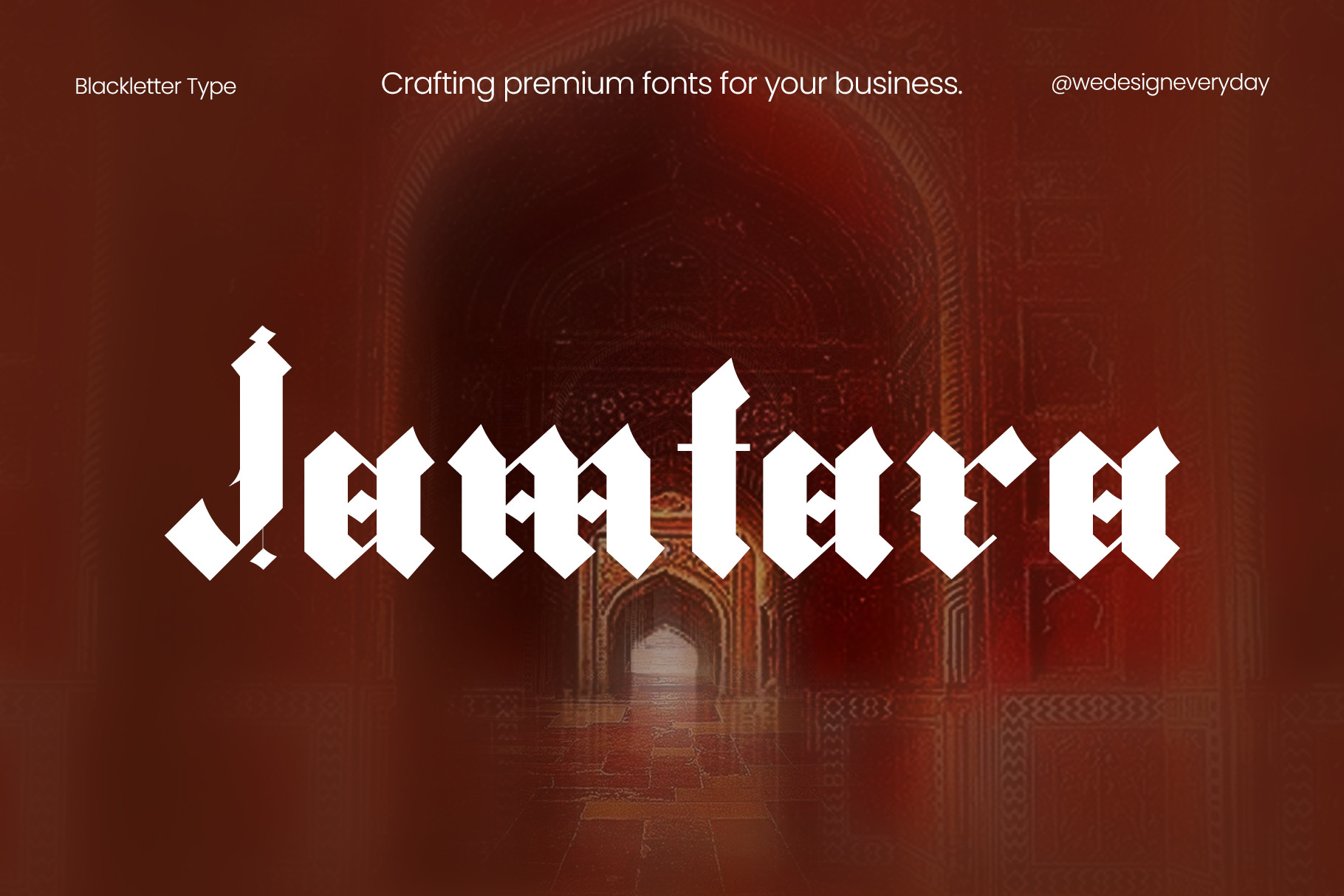
Jamtara Blackletter Font
The Jamtara Blackletter Gothic Typeface Font includes a full set of capital and lowercase letters, as well as numerals, punctuation.
It can be used as a Tattoo fonts and street lettering. Jamtara Blackletter Gothic font is hand made font. The Jamtara Blackletter Gothic Typeface is suitable font for tattoo artist, poster design, advertisement and and products.